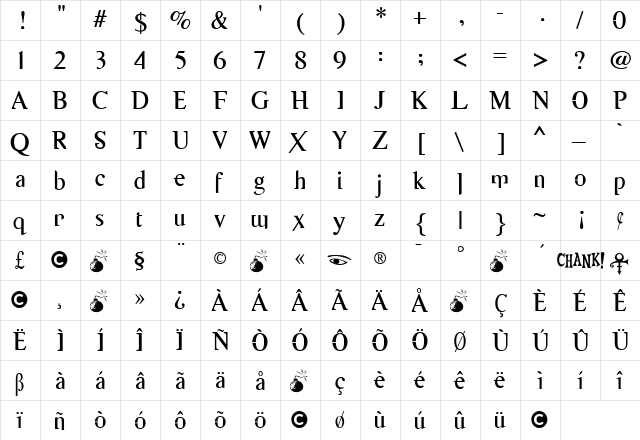
Thymesans Regular
Thymesans takes a measured approach to typography — its balanced proportions and neutral character make it a reliable workhorse for both digital and print work.